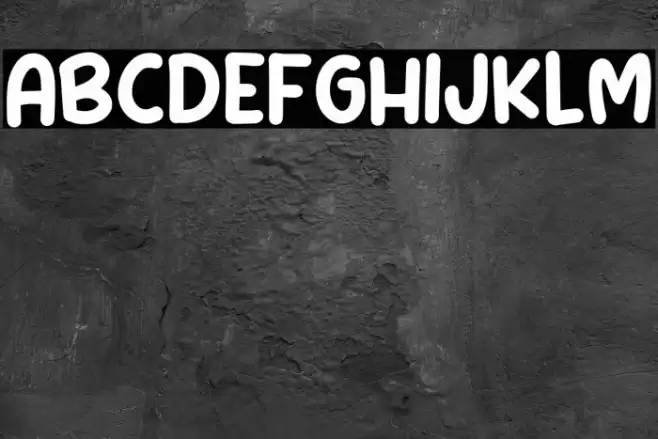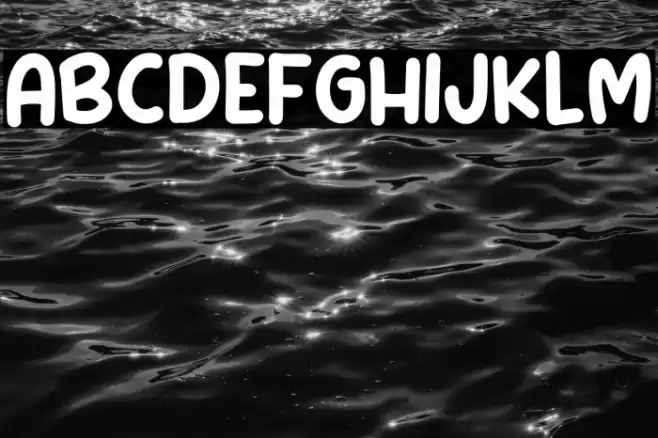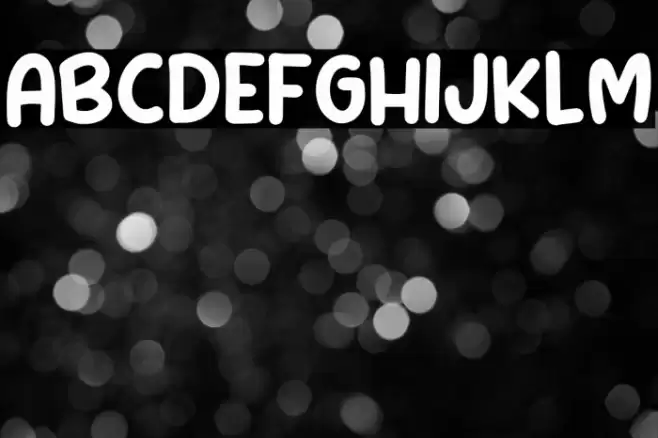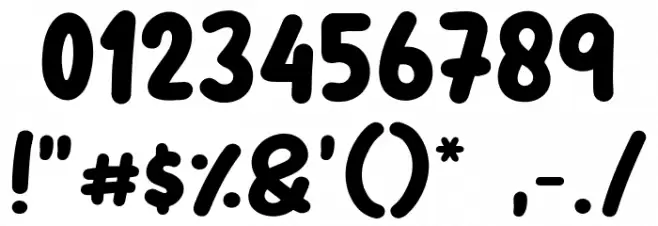
Om Botak Font
Om Botak Description
This playful and rounded font features bold, thick strokes with a casual, handwritten style. The characters are slightly irregular, giving it a friendly and approachable appearance. The uppercase and lowercase letters maintain a consistent style, with rounded edges and a smooth flow. Numbers and special characters follow the same design principles, ensuring uniformity across all glyphs. The font's overall look is informal and fun, making it suitable for creative projects that require a touch of whimsy.
A playful, rounded font with a casual, handwritten style from Uncategorized fonts.
- Font: Om Botak
- Proposed Projects: Ideal for children's books, playful branding, greeting cards, and informal invitations.
- Overall Style: Playful
- Use Case: Headlines, Logos, Informal text